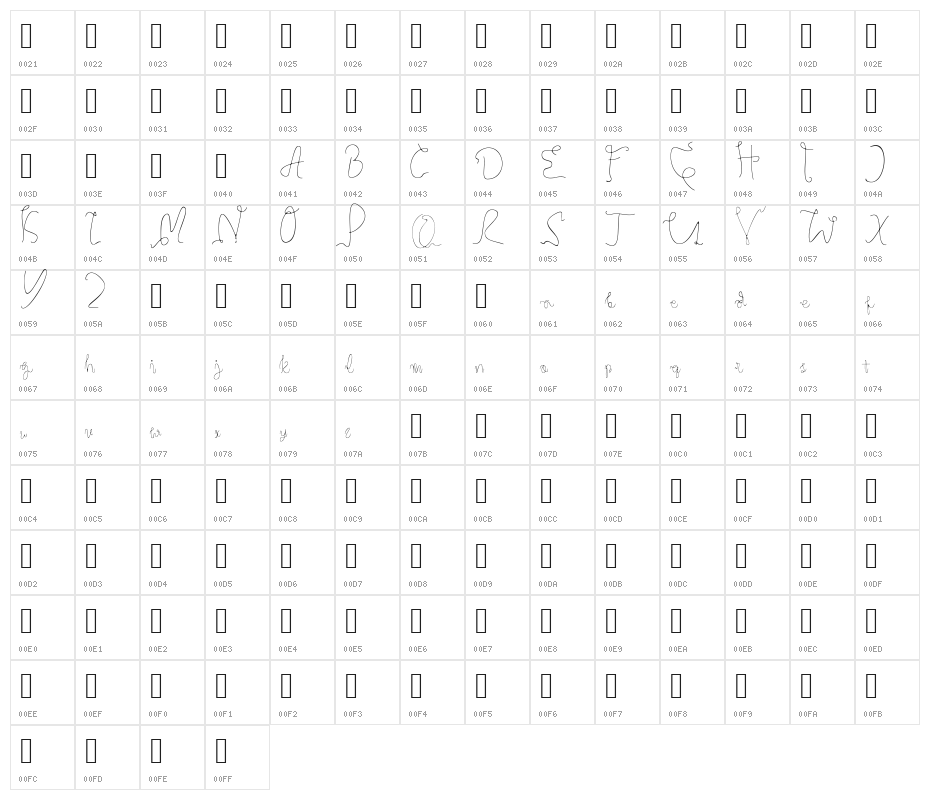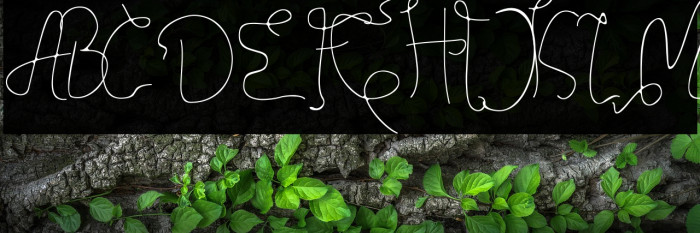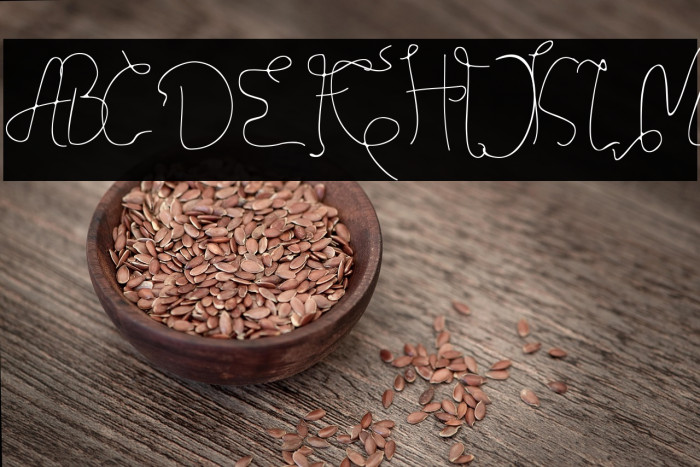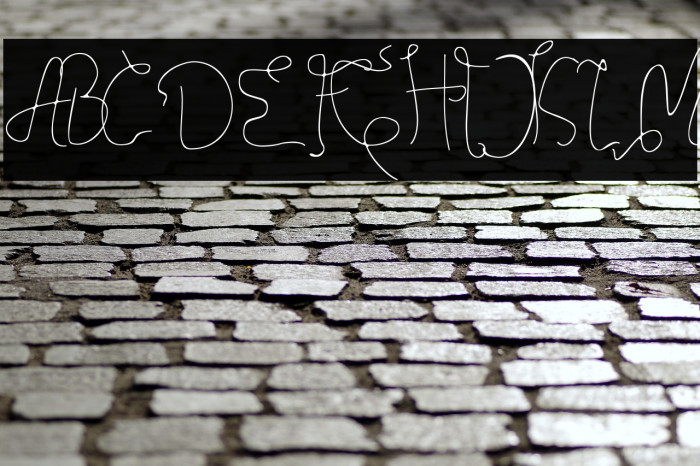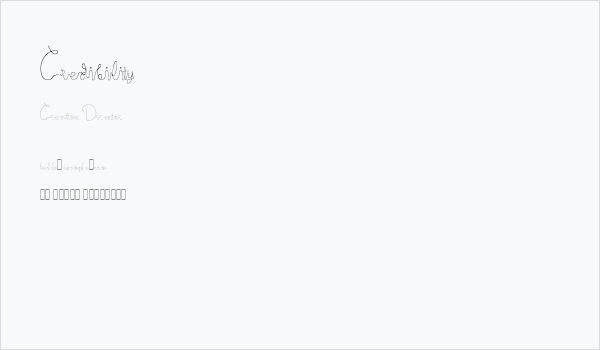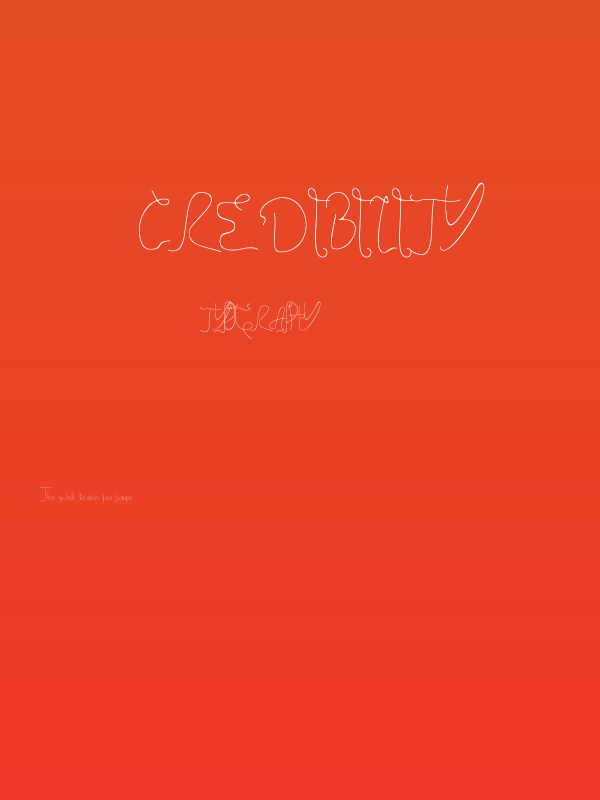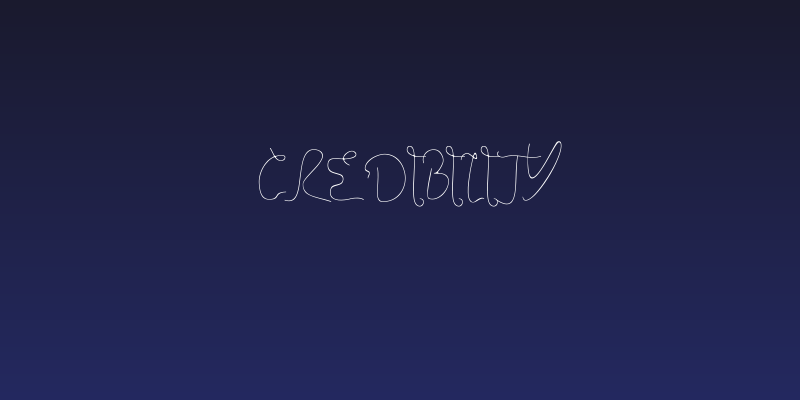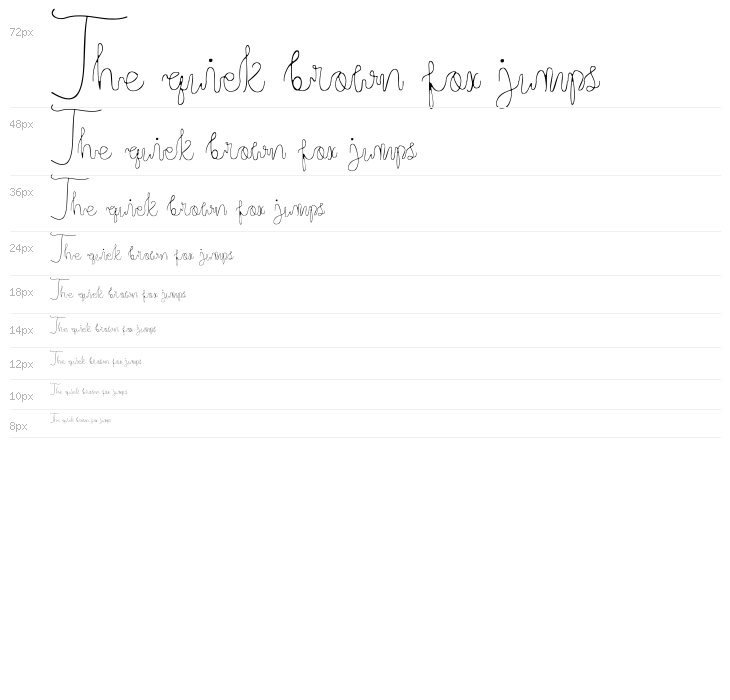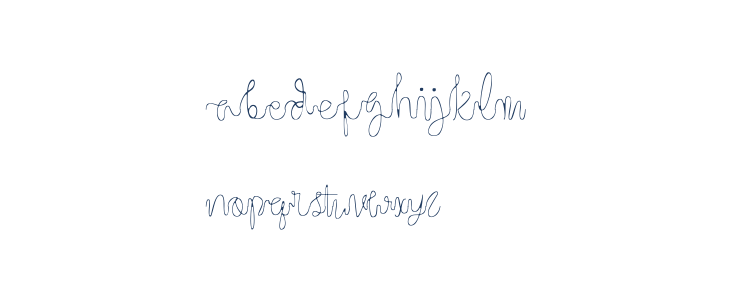
Credibility Font
Credibility Description
This font features a whimsical and playful design with a handwritten style that mimics the fluidity of cursive writing. The letters are interconnected with loops and curves, giving it a dynamic and lively appearance. The uppercase letters maintain a consistent height, while the lowercase letters exhibit a more varied baseline, enhancing its casual and informal feel. The overall design is light and airy, with thin strokes that add to its delicate and elegant nature. This font is ideal for projects that require a personal touch, such as invitations, greeting cards, and creative branding.
| Use Case | Logos, Headlines |
| Proposed Projects | Ideal for invitations, greeting cards, creative branding, and personal projects. |